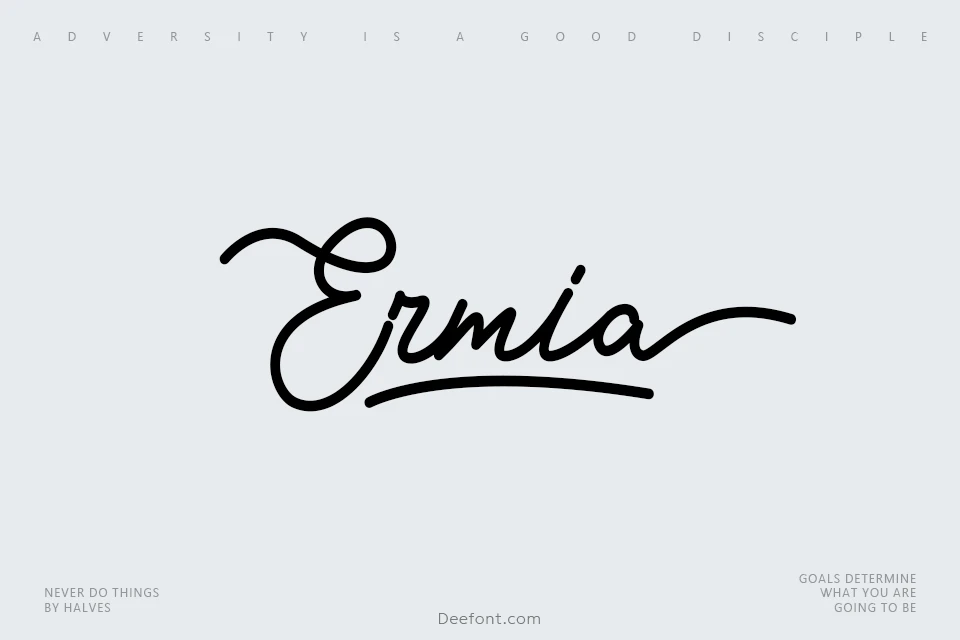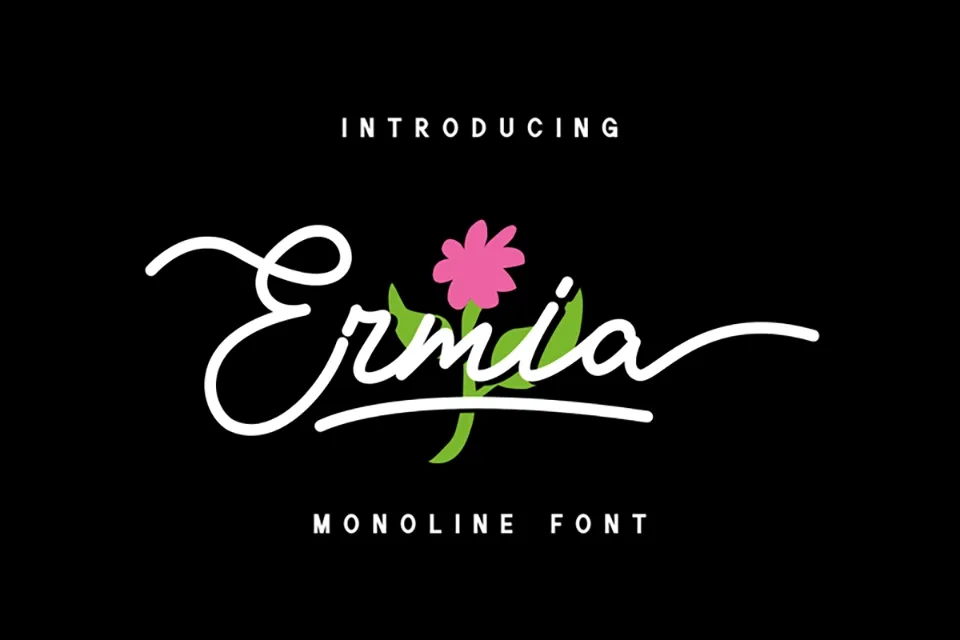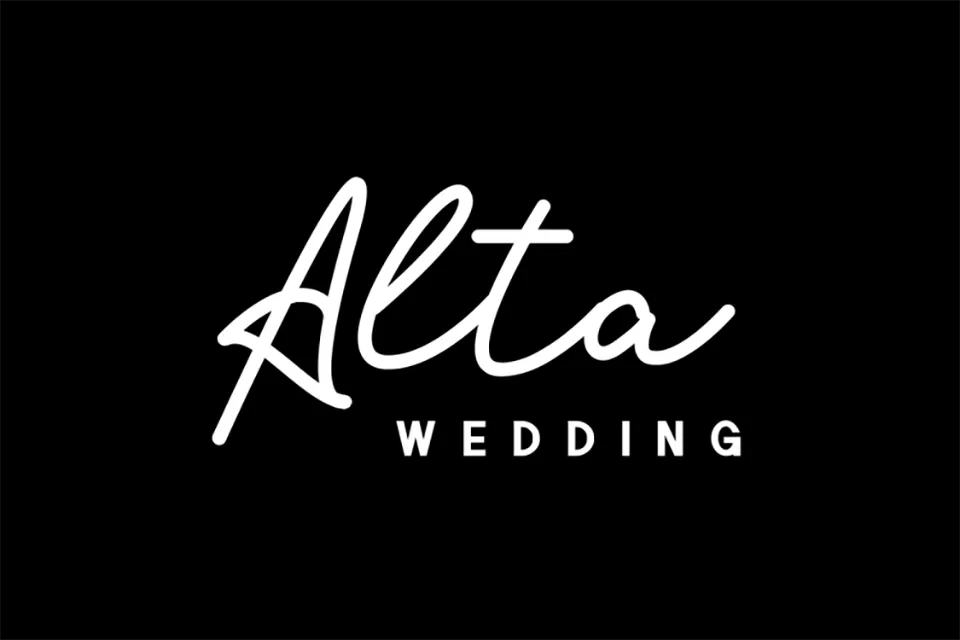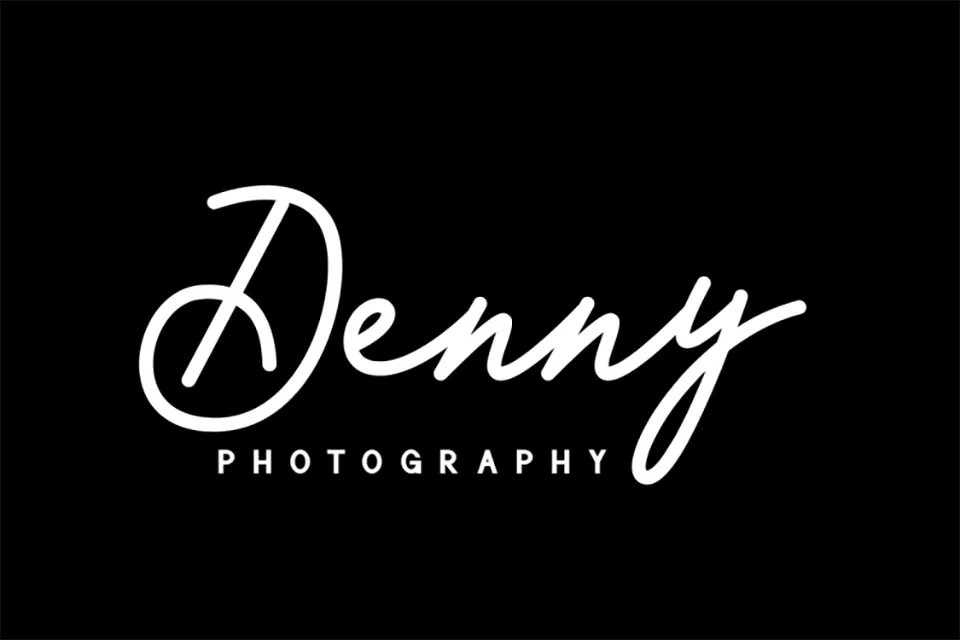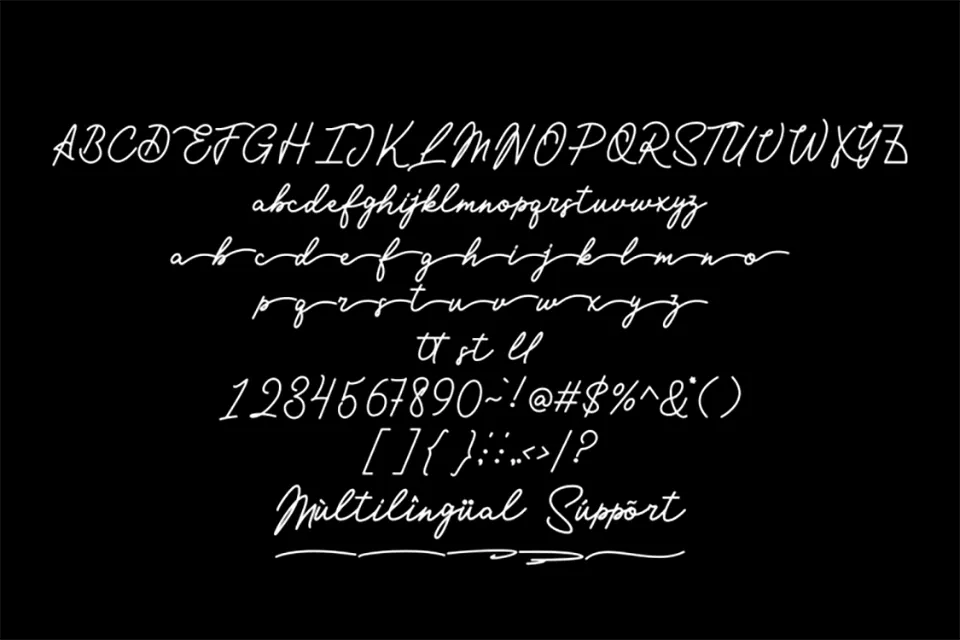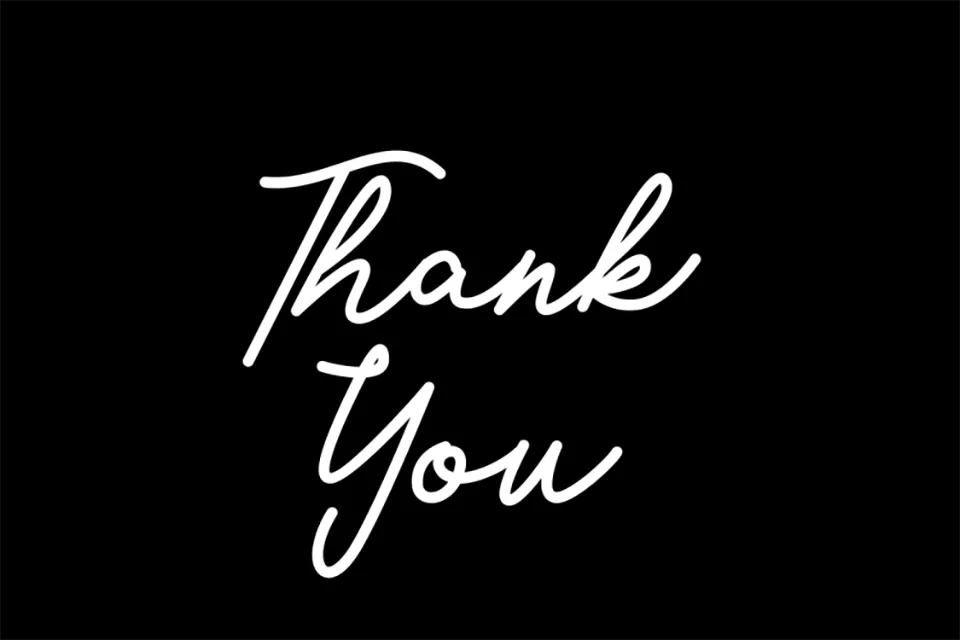
Ermia Font
Ermia Font is a delicate, elegant, and flowing handwritten script font. It features beautiful, well-balanced characters and a monoline style, making it ideal for a wide range of creative projects, from branding and invitations to social media graphics. Its stylish, personal touch adds sophistication and charm to any design.